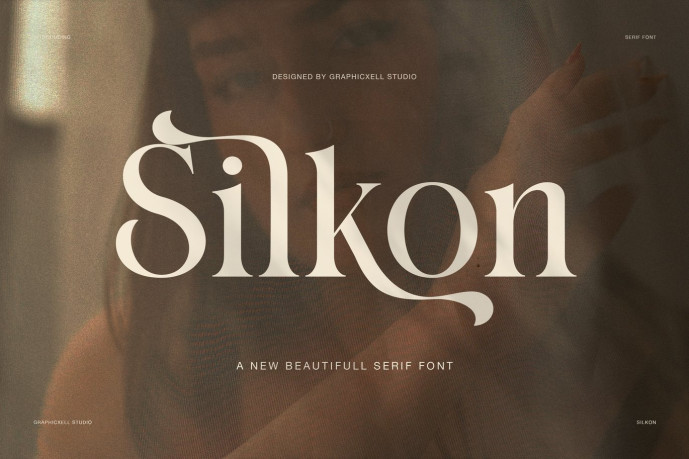
Silkon Font
Designer: Graphicxell
Silkon Font is a modern display typeface with a smooth, graceful, and expressive look. It combines a clean serif structure with flowing decorative details, giving it an elegant appearance at first glance and a memorable feel in use. Thanks to this balance, Silkon works perfectly for branding, editorial layouts, fashion visuals, and sophisticated product presentations.
Silkon’s form is elegant, yet also fresh and confident. Its main letterforms feature soft contrast, crisp stems, and clean serif endings. At the same time, several letters have long, curved tails and refined alternate forms that add movement and charm. These details give the typeface a sense of life. Silkon is therefore much more than just a serif font. It is a display typeface with a distinct personality and high-end appeal.In the preview examples, Silkon works beautifully across a wide range of styles. It looks great in fashion branding, personal name layouts, home and interior design themes, boutique presentations, and eyewear brands. Therefore, this typeface is versatile, suitable for both luxury and lifestyle design. It can appear feminine and soft in one layout, while it can also look clean, modern, and professional in another.Another strength is the alternative character set. The substitutes add a personalized touch to words without making the text difficult to read. Furthermore, the punctuation and numbering system maintain the perfection and consistency of the entire font. Therefore, Silkon is a useful choice for logos, packaging, headlines, social media graphics, invitation designs, and brand identity projects.